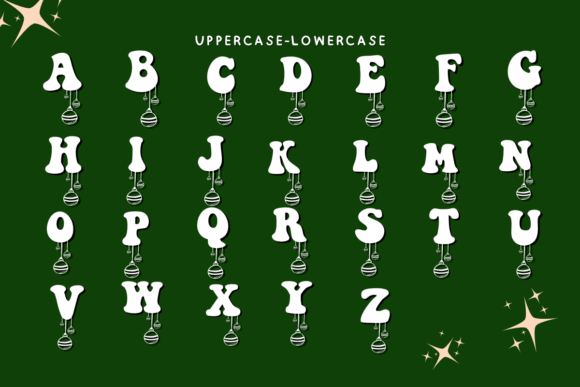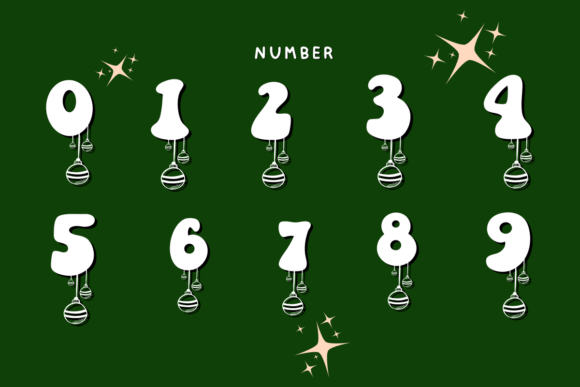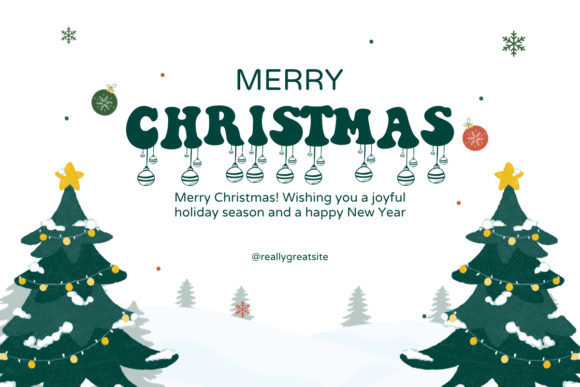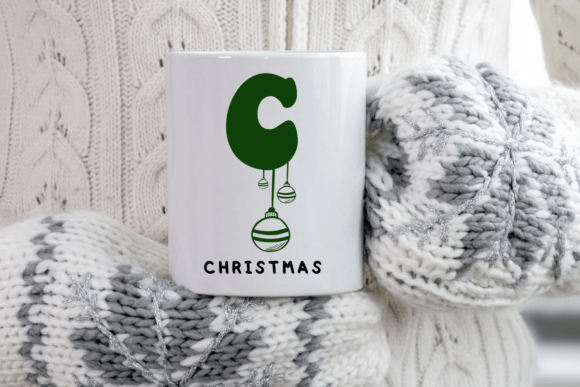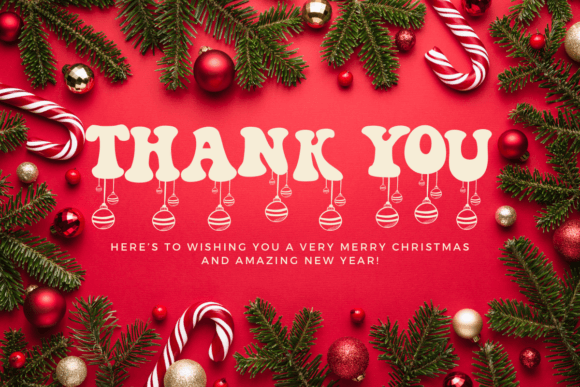
Deck the Halls with Holiday Cheer
As I sat by the fireplace, surrounded by twinkling lights and the warmth of loved ones, I stumbled upon the perfect way to capture the essence of the season – the “Christmas Ornaments” font. Its whimsical strokes and playful charm instantly transported me to a world of festive wonder.
Designed to bring warmth and magic to your creations, the “Christmas Ornaments” font is a unique handwritten typeface that’s perfect for adding a personal touch to your holiday projects. Whether you’re a seasoned designer or a crafty enthusiast, this font will breathe life into your designs, making it an invaluable addition to your toolkit.
Key Features of Christmas Ornaments Font
- Font Family: A unique, hand-drawn font designed to resemble Christmas ornaments, perfect for holiday-themed designs and projects.
- Character Set: Includes a wide range of characters, including uppercase and lowercase letters, numbers, and special characters, making it suitable for various applications.
- Unique Characteristics: Features intricate, hand-drawn details and ornaments, adding a touch of whimsy and festivity to any design.
Review of Christmas Ornaments Font
Overall, I think the Christmas Ornaments Font is a great choice for holiday-themed projects, but it’s not without its limitations. ✨ One thing that works well is its playful and festive feel, which is perfect for Christmas cards, gift tags, and other winter-themed designs. The font is also highly customizable, with a range of styles and sizes to choose from.
Another advantage is the extensive range of ornaments and symbols that come with the font, which can add a lot of visual interest to your designs. ✨ Some of the ornaments are quite intricate and detailed, making them perfect for adding a touch of sophistication to your projects.
- ⚠️ Limited to holiday-themed designs: While the font is perfect for Christmas, it may not be as versatile for other types of projects.
- ⚠️ Some ornaments may be difficult to customize: While the font is highly customizable, some of the ornaments may be tricky to adjust or resize.
- ⚠️ May not be suitable for complex designs: The font’s intricate details can make it challenging to work with complex designs or layouts.
Overall, I think the Christmas Ornaments Font is a great choice for holiday-themed projects, but it’s essential to be aware of its limitations before using it for more complex or versatile designs.
Use the Christmas Ornaments Font for:
- Christmas cards and invitations
- Holiday party decorations and signage
- Seasonal social media graphics and ads
- Winter-themed merchandise and packaging